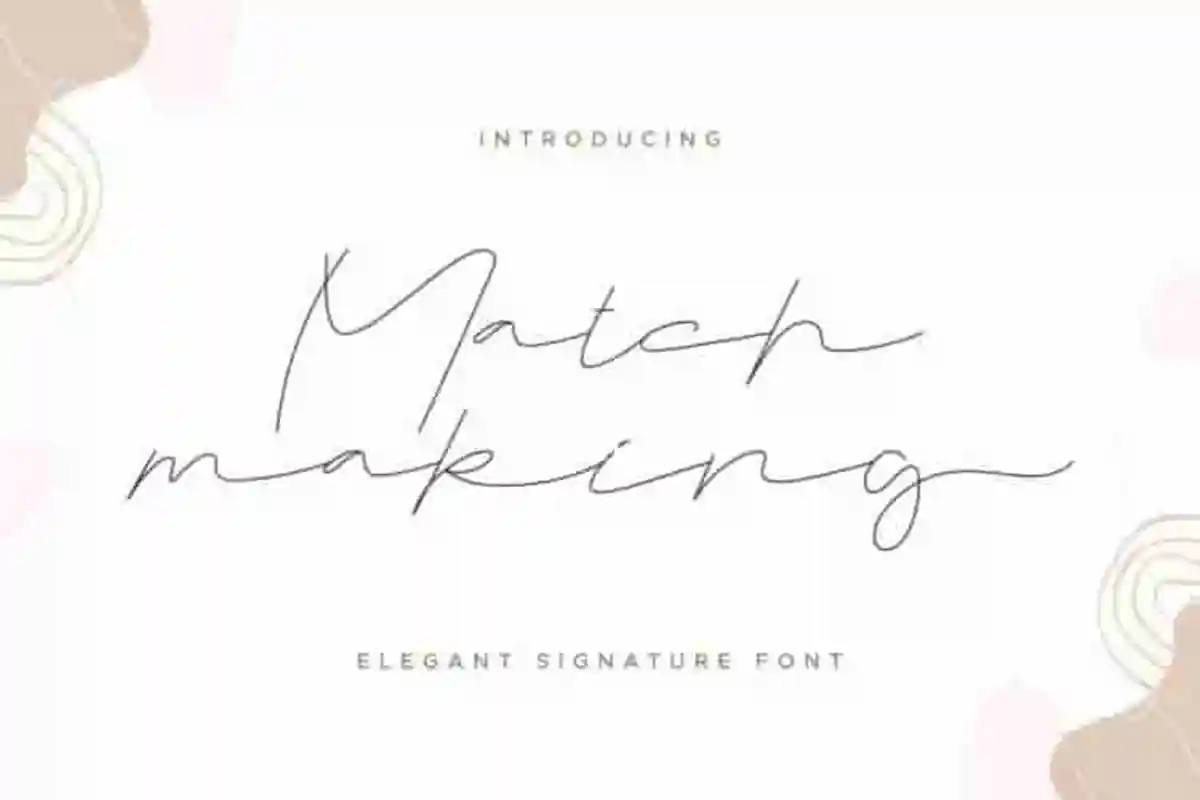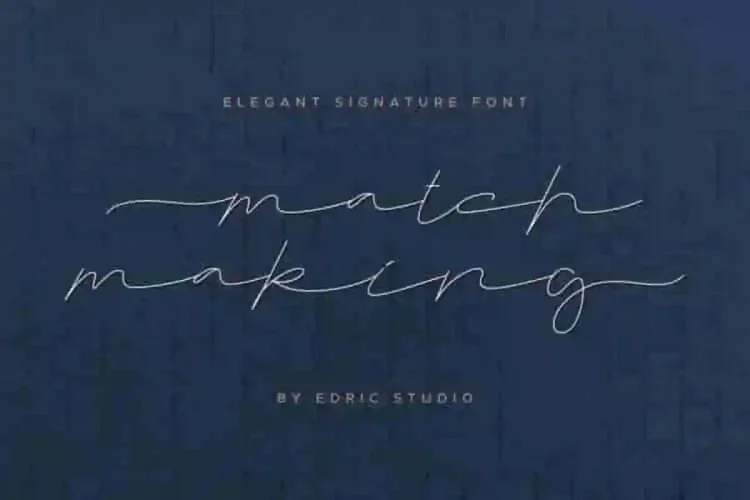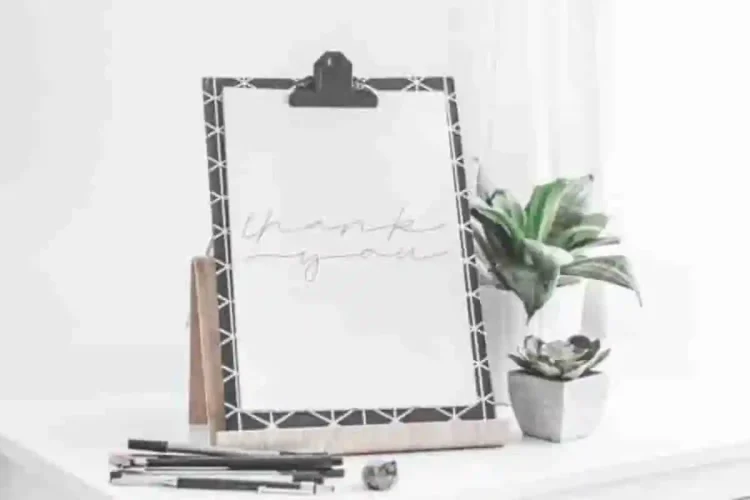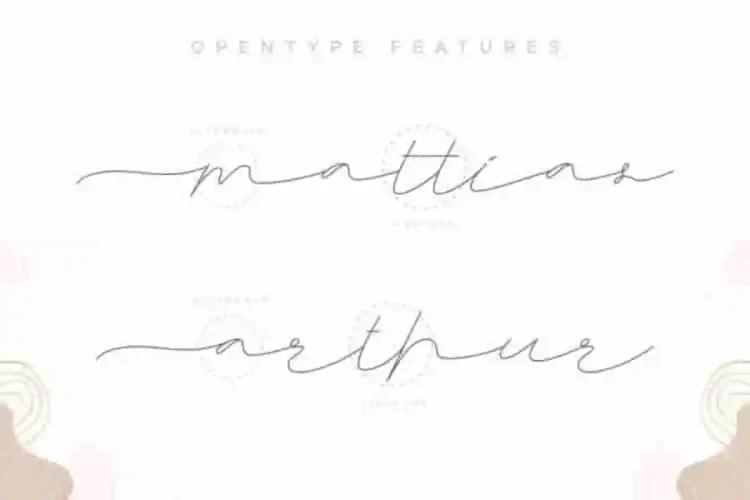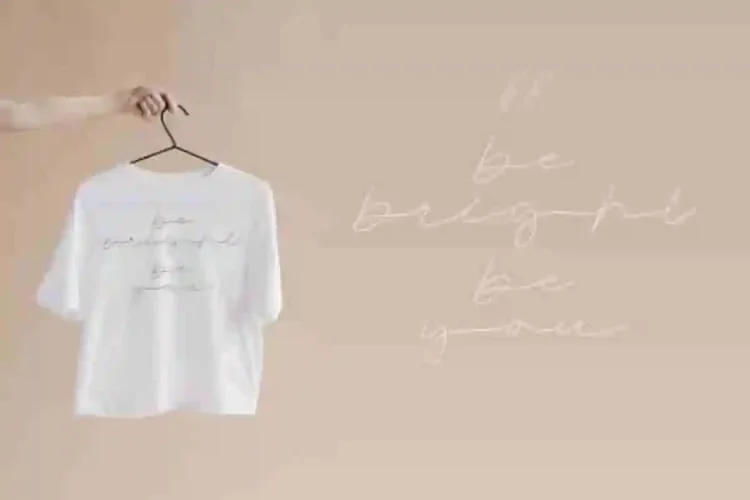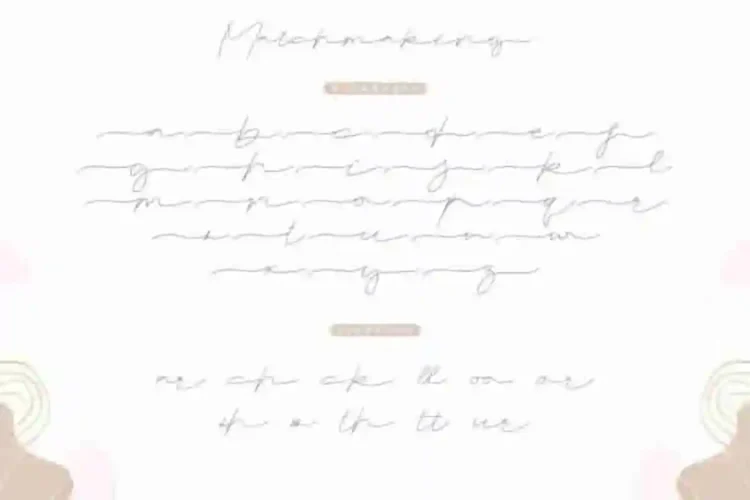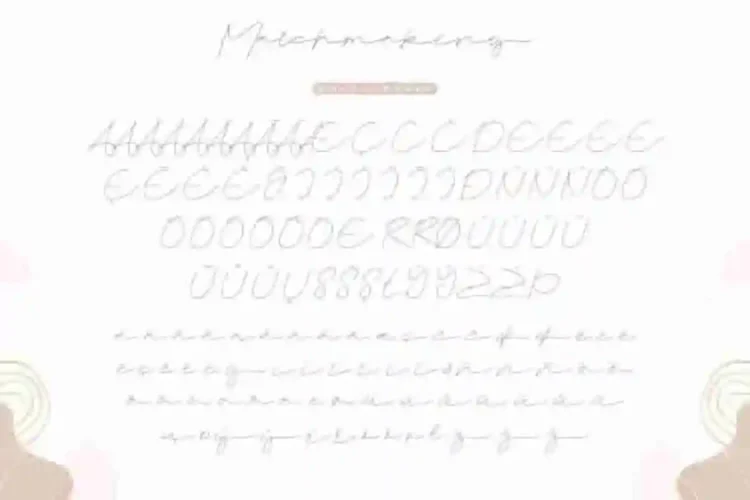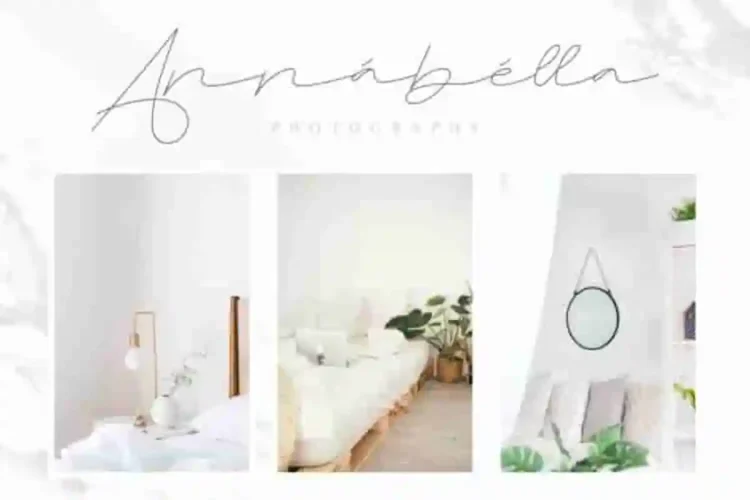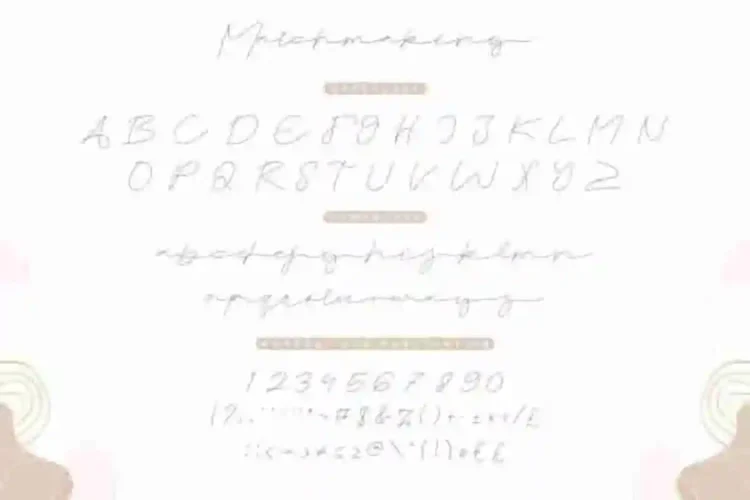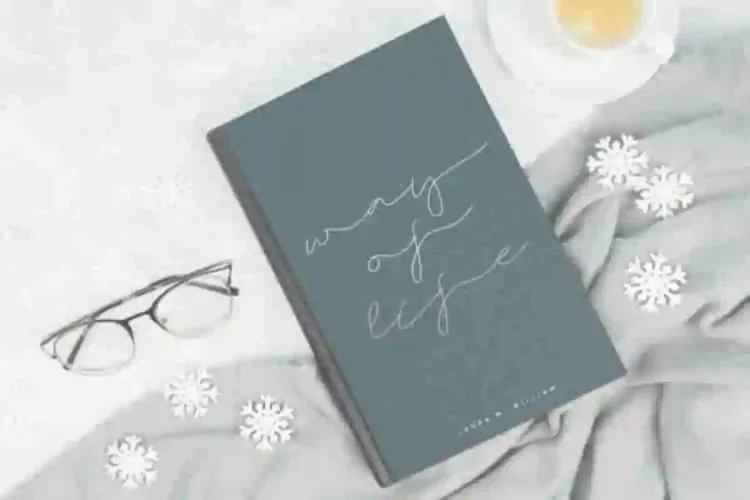
Matchmaking Calligraphy Script Font
This is a calligraphy single line Font , handcrafted from our Studio here in Indonesia. The artists/designers of this beautiful tyeface are Yasri and Suci Sarah.
Matchmaking Calligraphy Script Font is an exclusive characters set, perfectly managed with well spaced and kerning. The theme style of this font will elegant, vintage, stylish, sophisticated and classic pen style.
Matchmaking Calligraphy Script Font will be great for any projects including : branding, logo, stationery, business card, signage, flyer, brochure etc. Almost all industries will be match for this typeface: wedding, events, real estate, architect, law firm, florist, gardening, makeup artist, travel, hotel, musician etc.